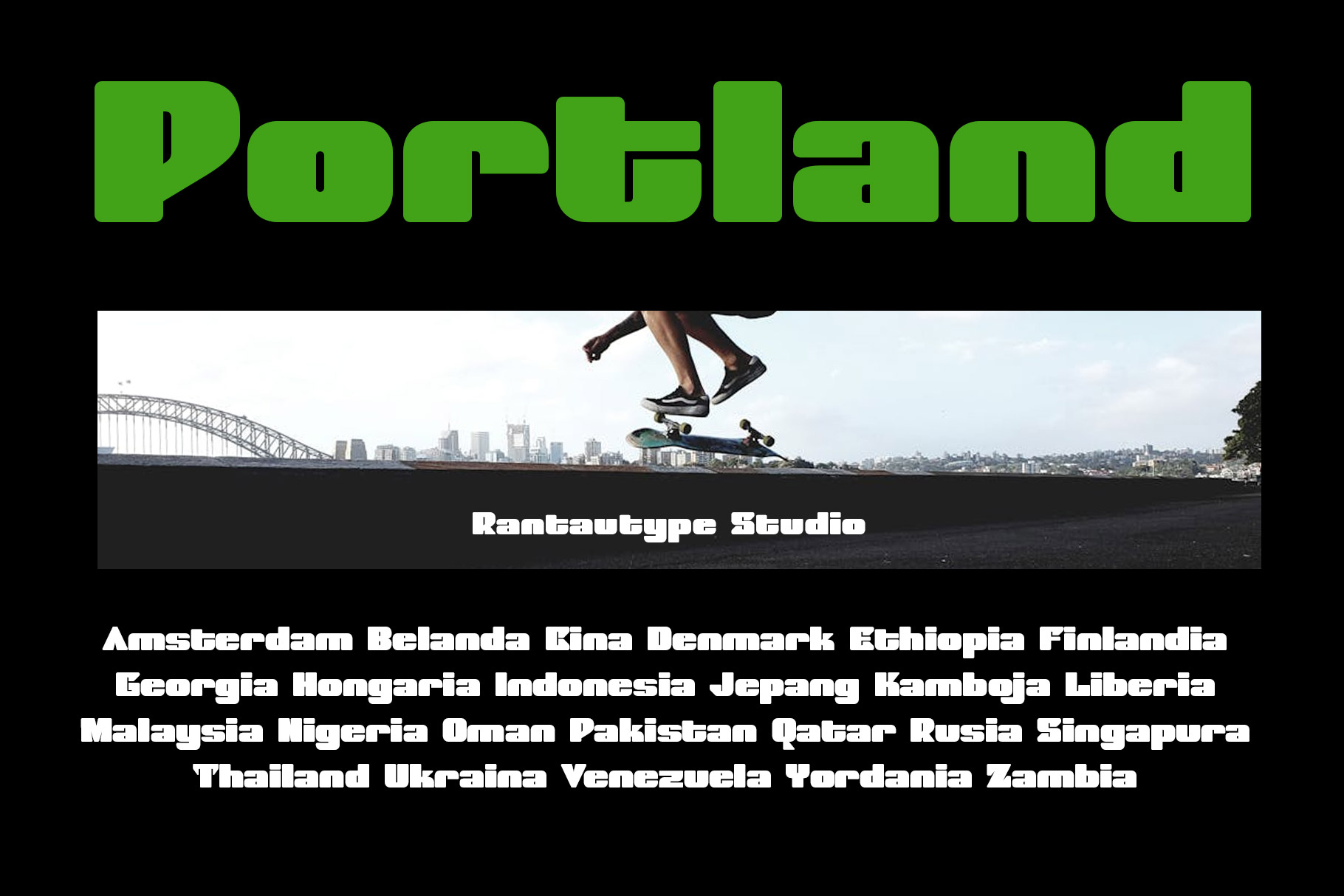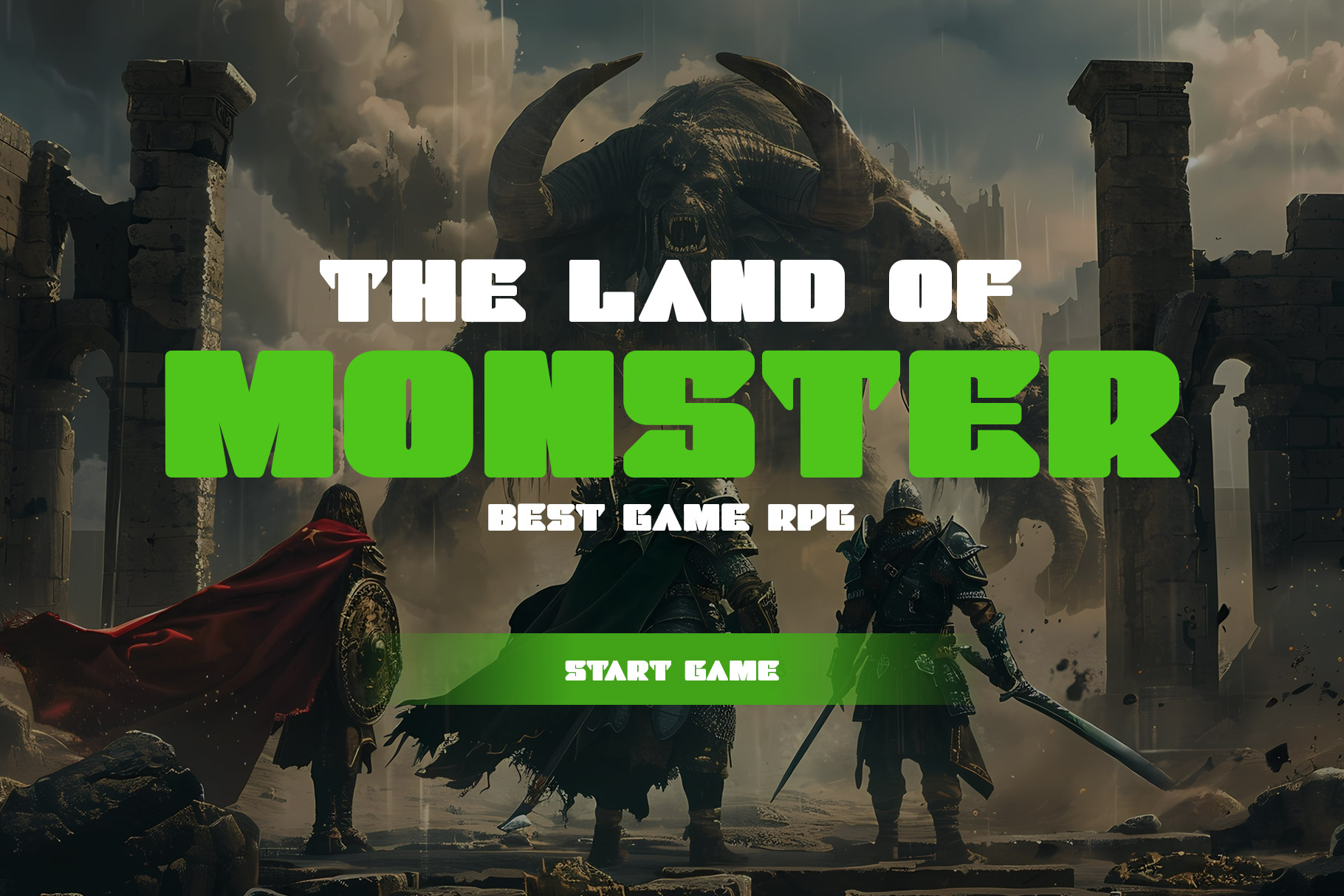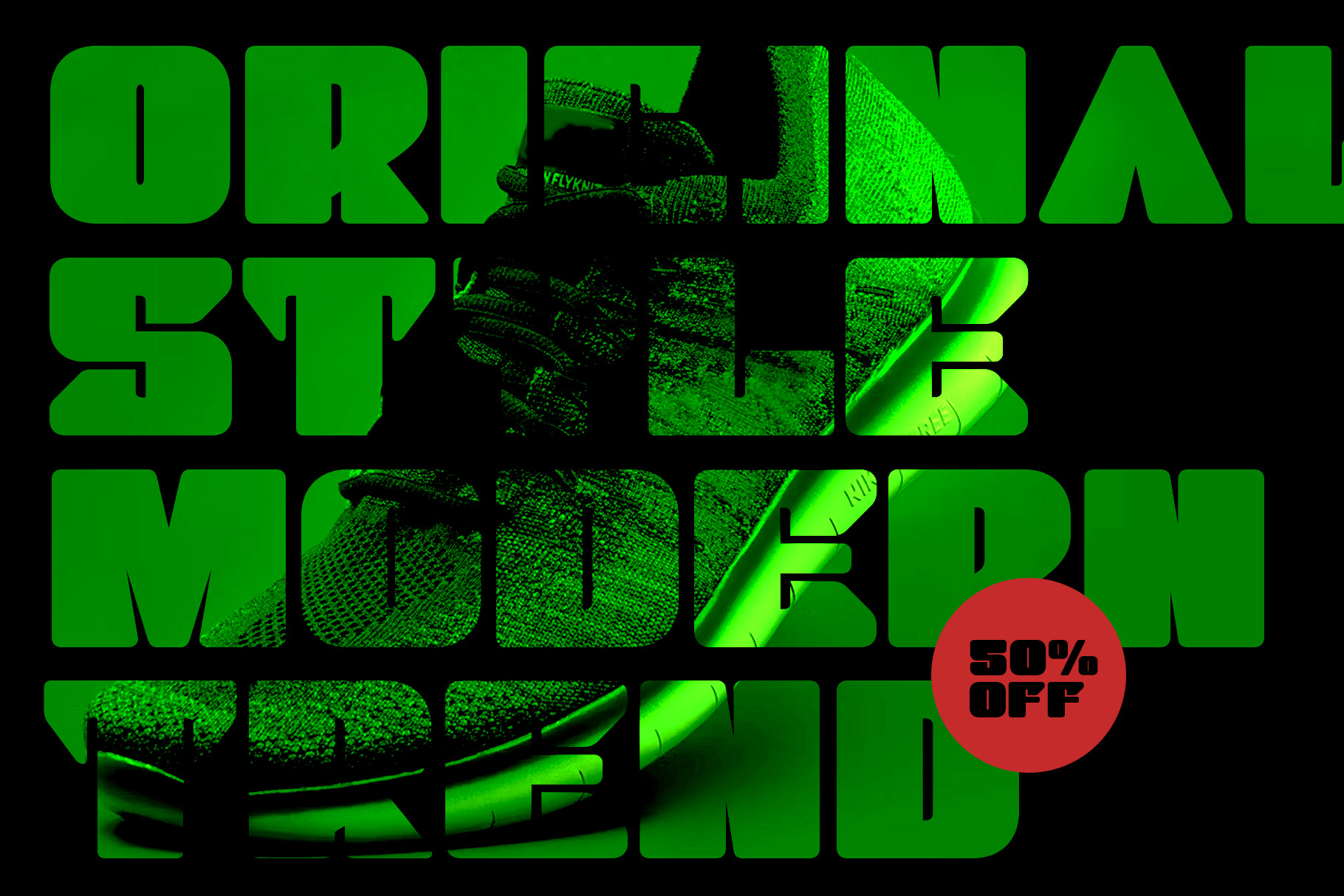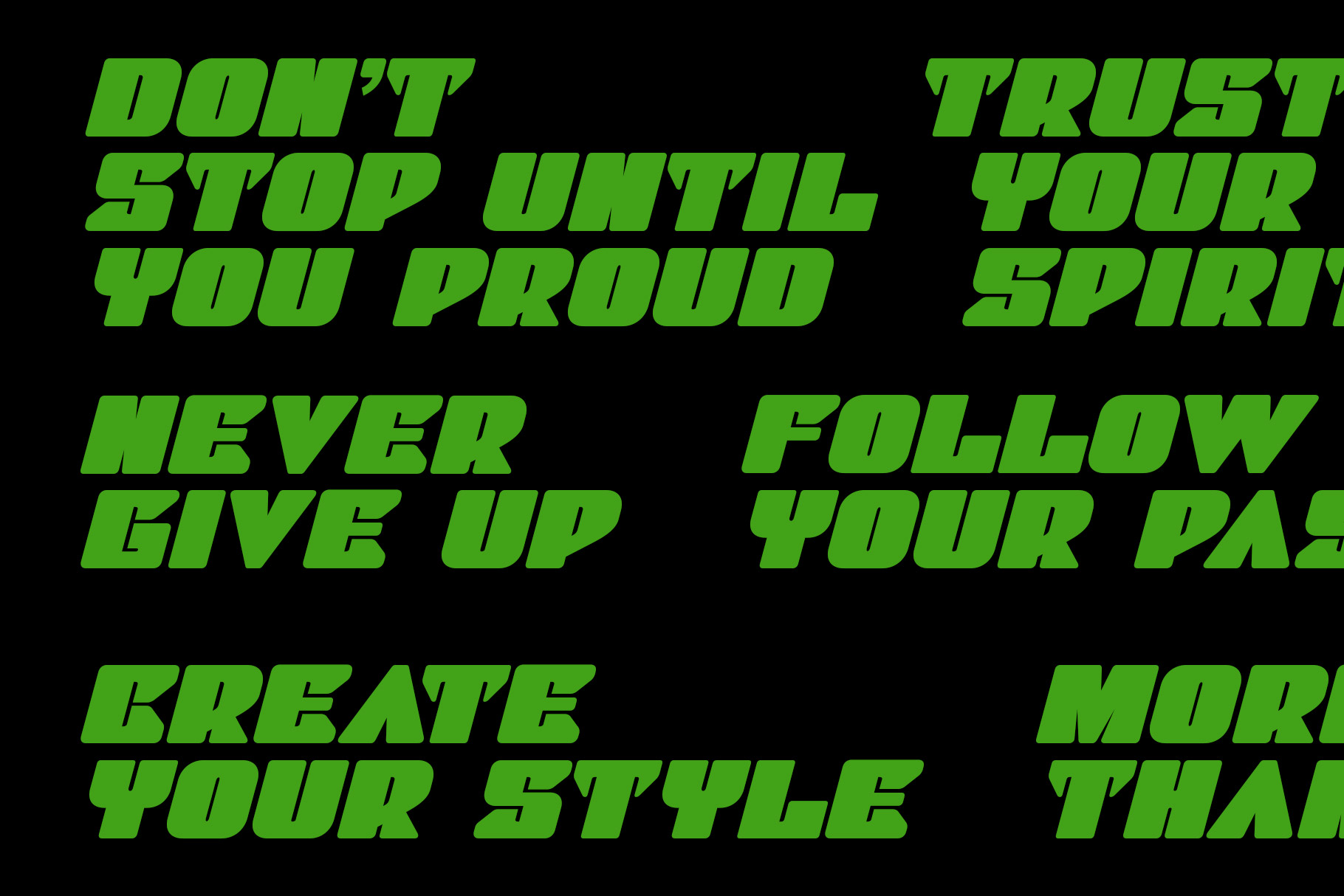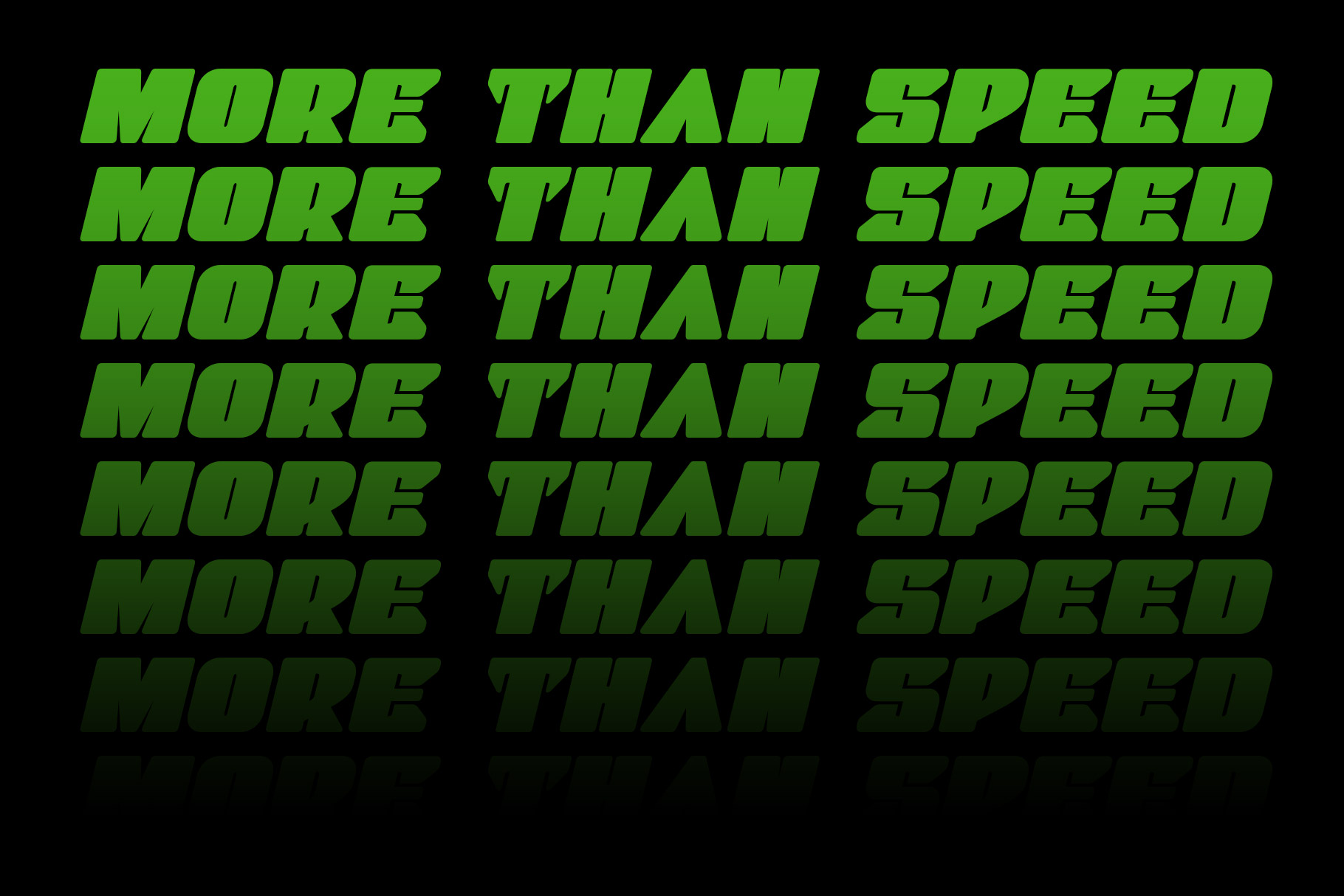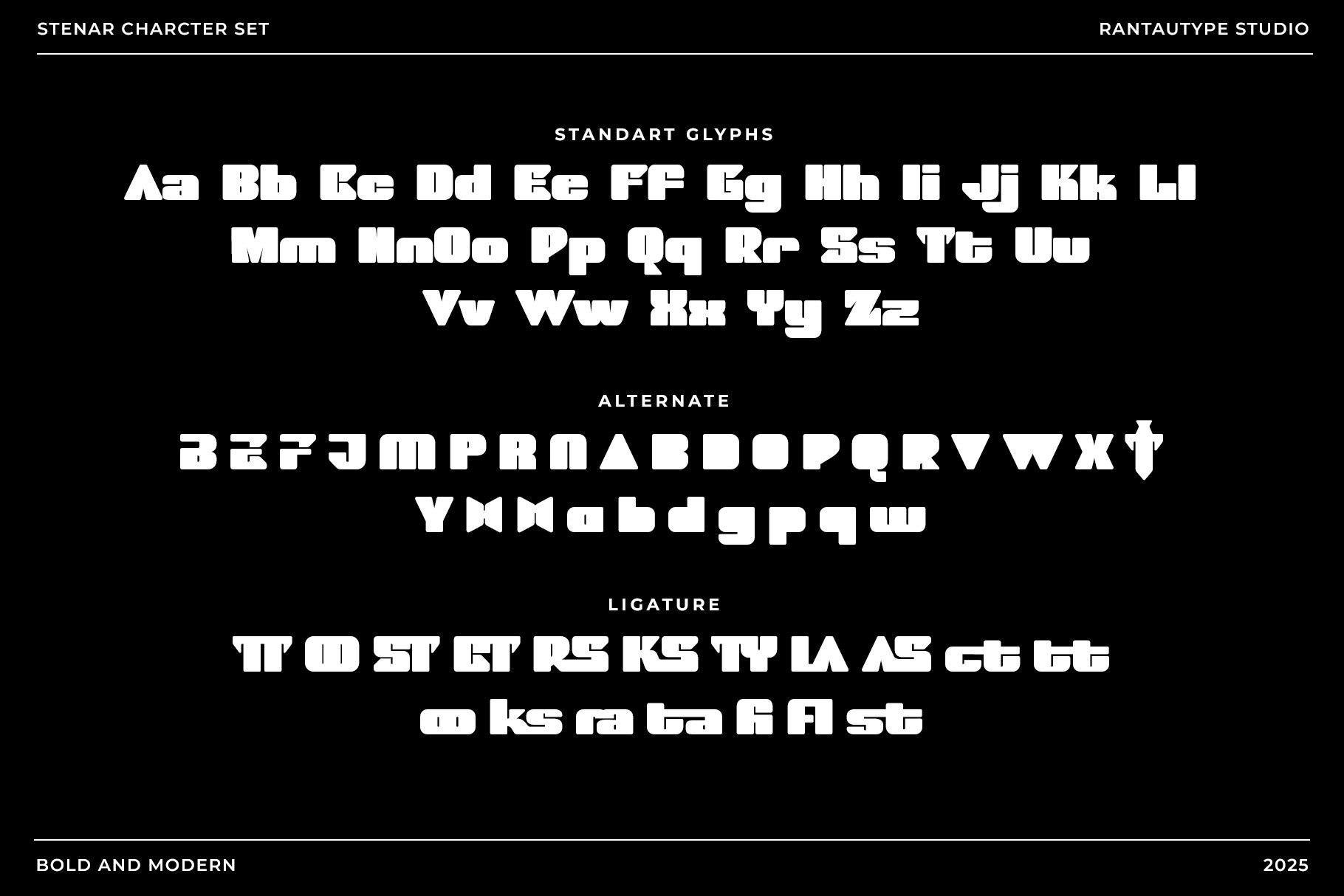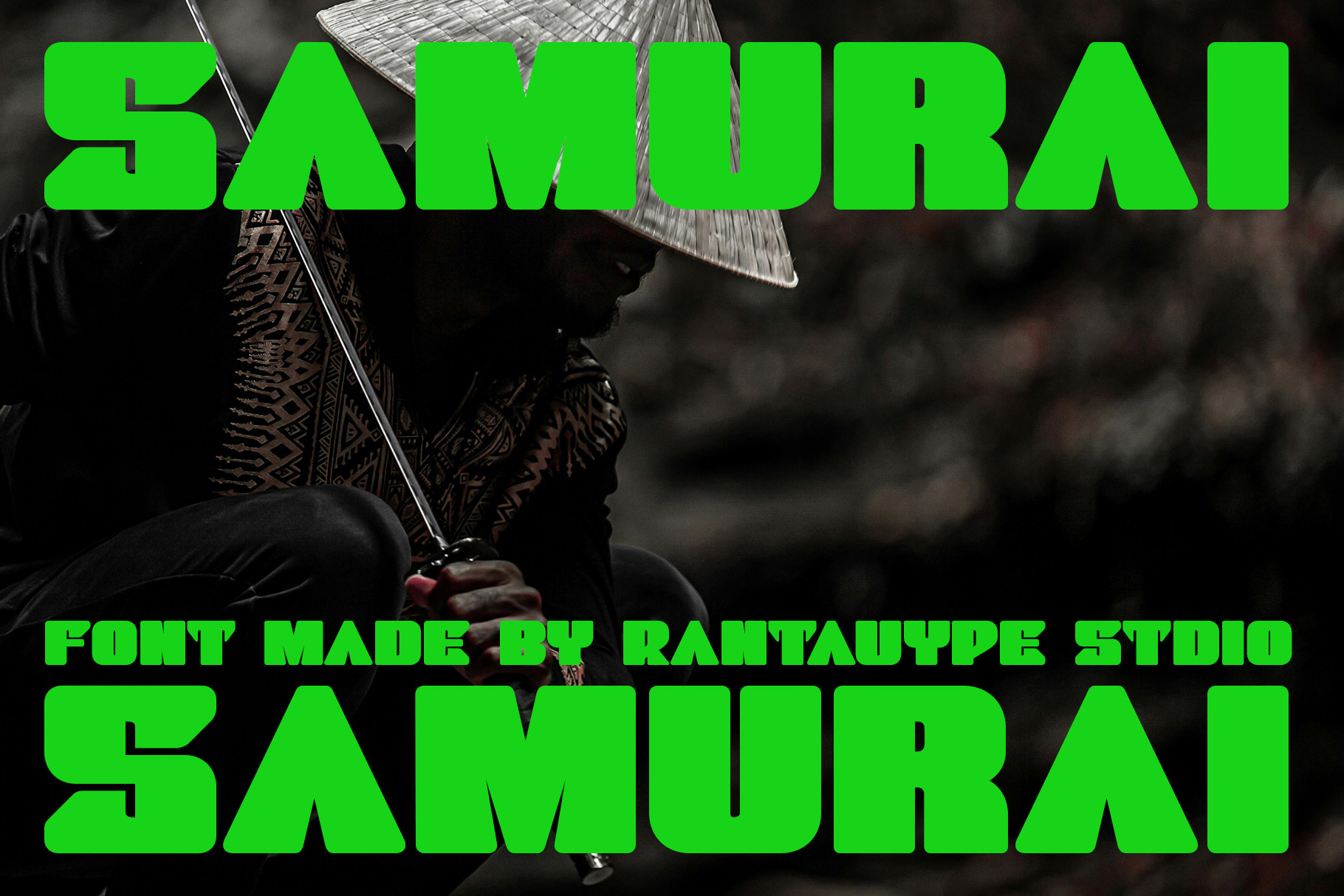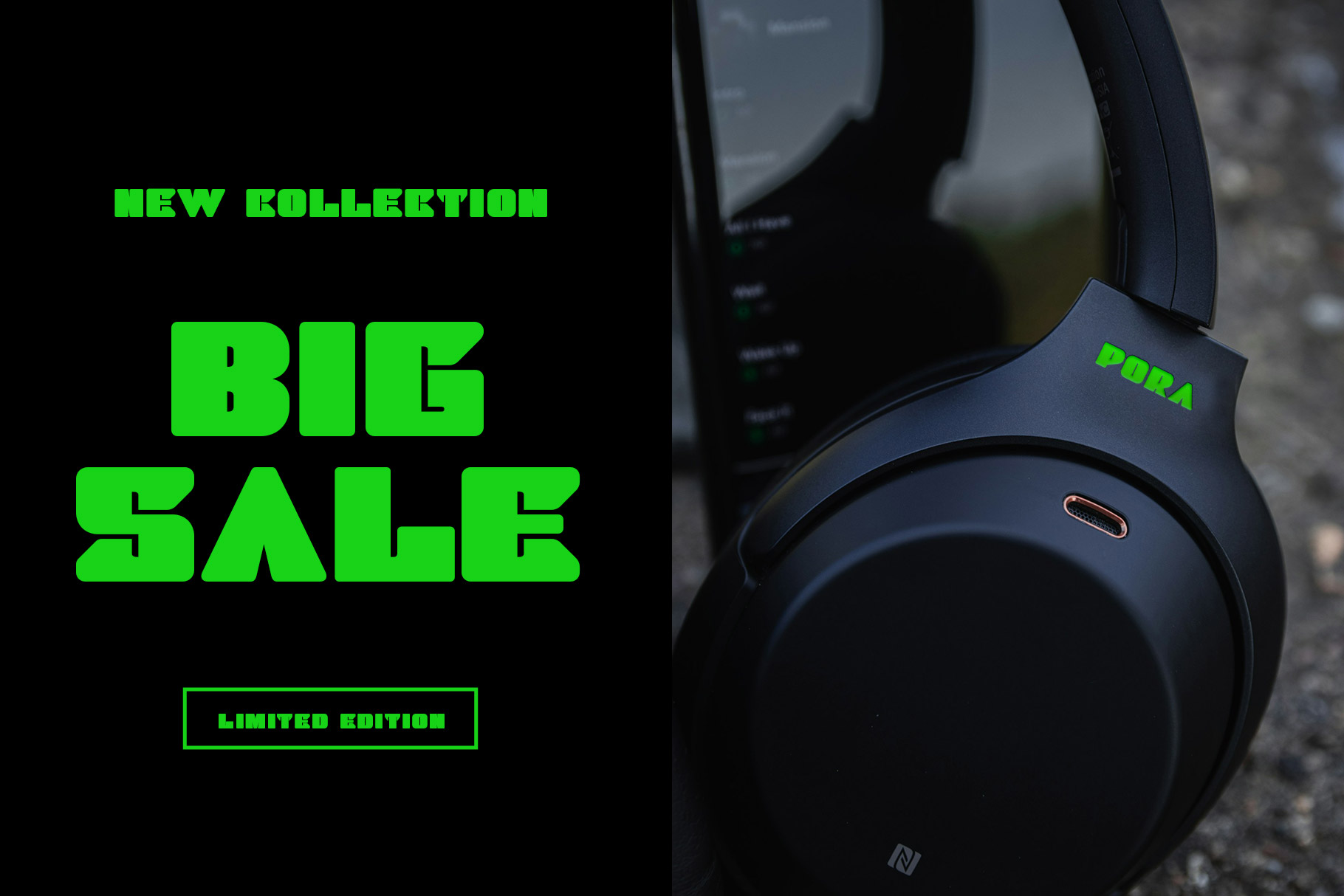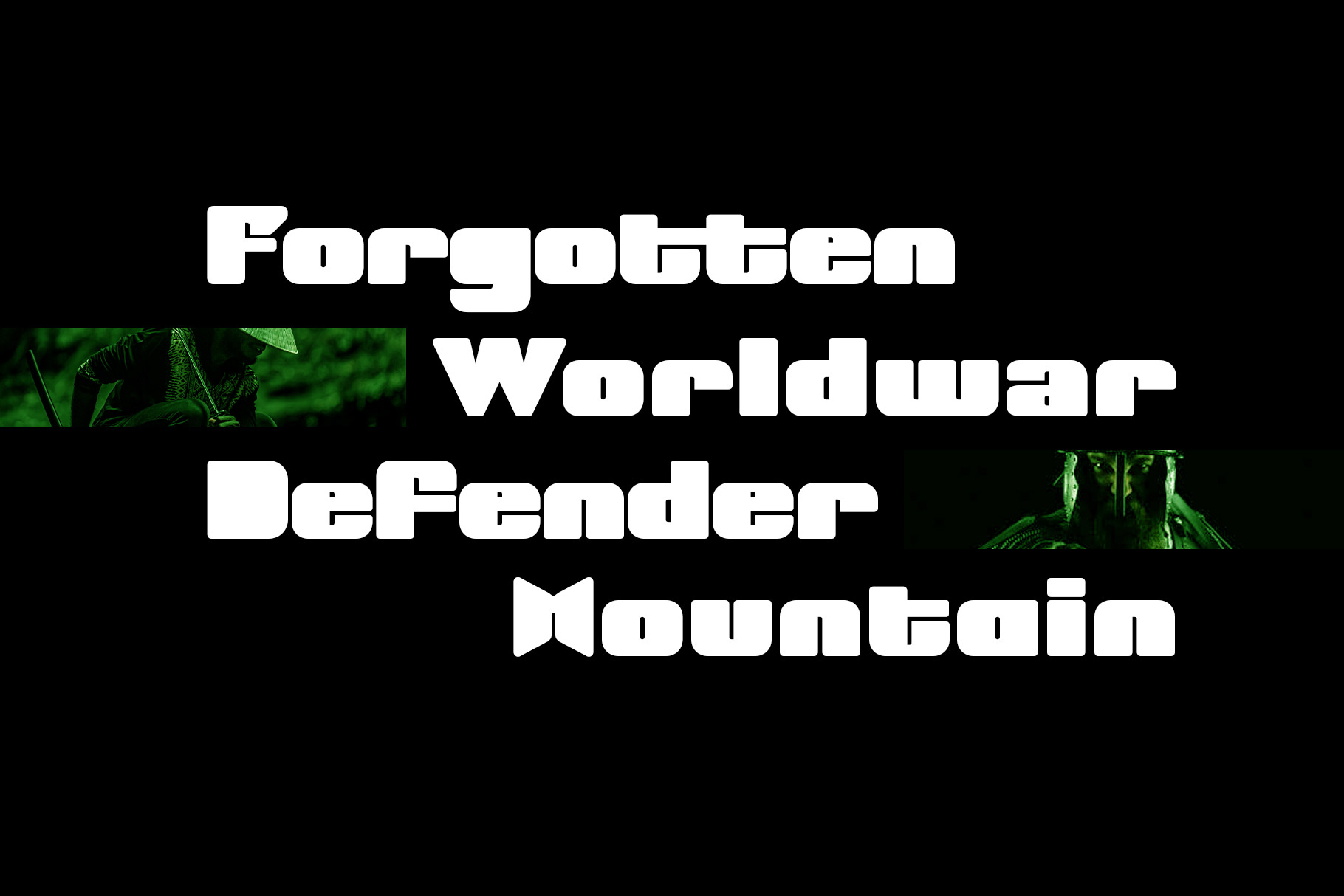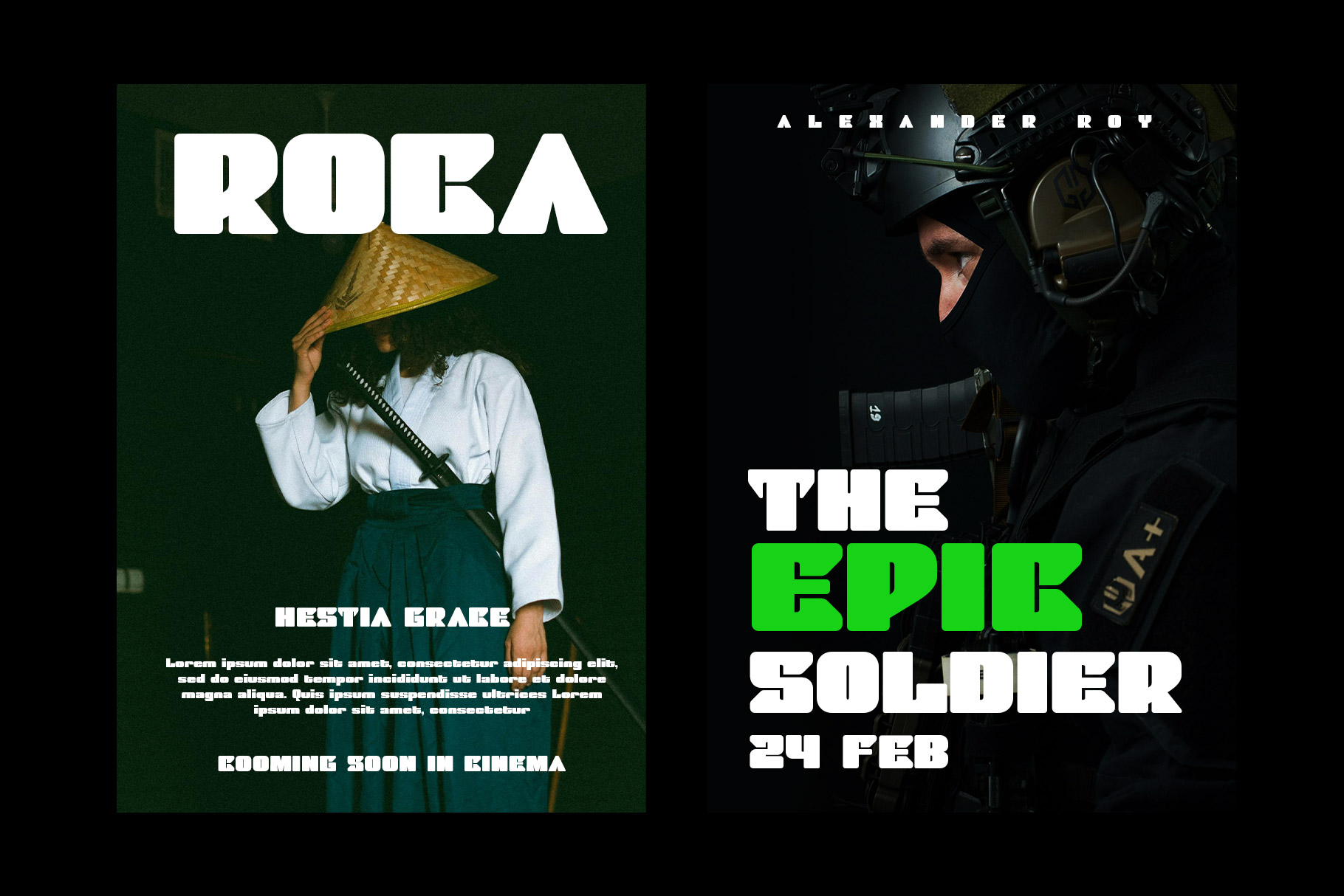
Stenar Modern Display Font
Stenar is modern bold font inspire by sport and game visual design. Stenar bring strong and powerful character to create your design project awesome. Stenar come with more feature, alternate , ligature and already support multilingual character. Stenar is a perfectly choice for any creative endeavor, chic, lifestyle design such as logos, advertisements, stationery, branding project, display and magazine, invitation, corporate brand, product design, label, business project and many other project with modern touch.